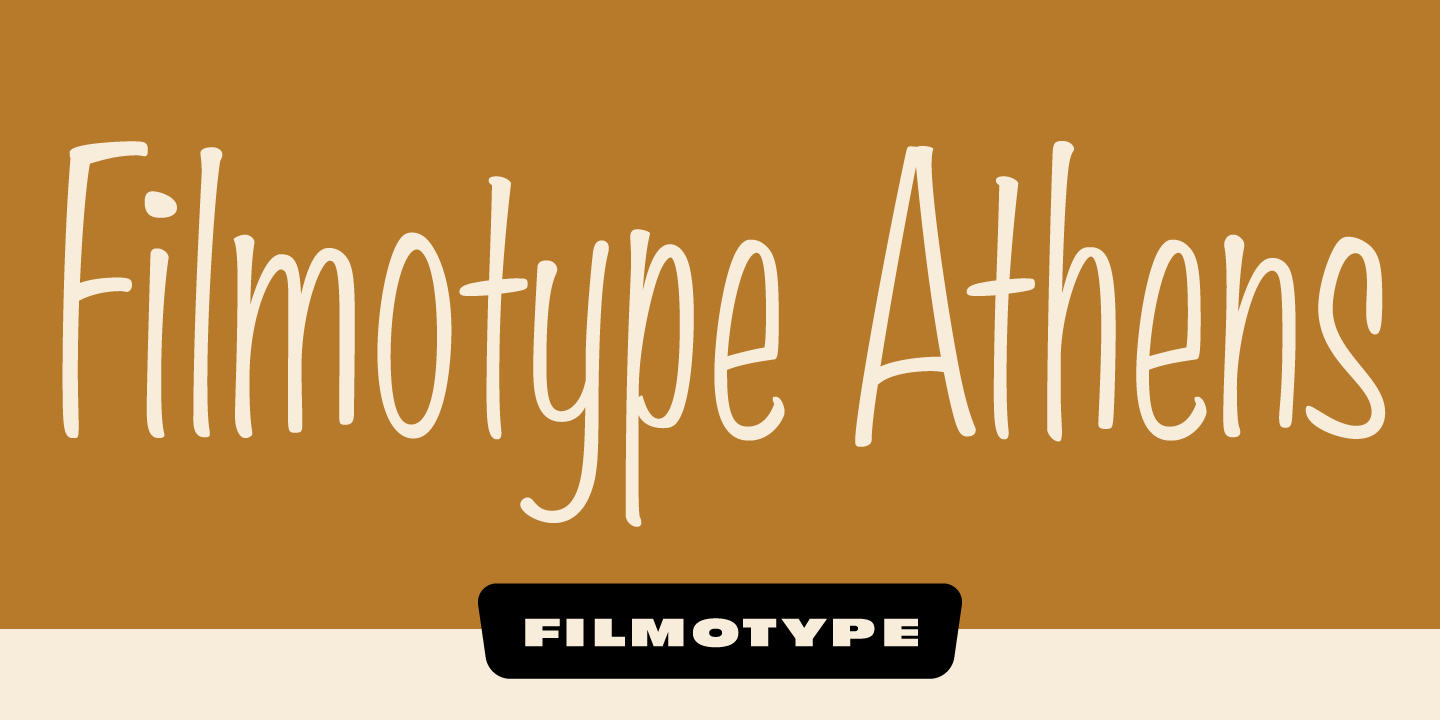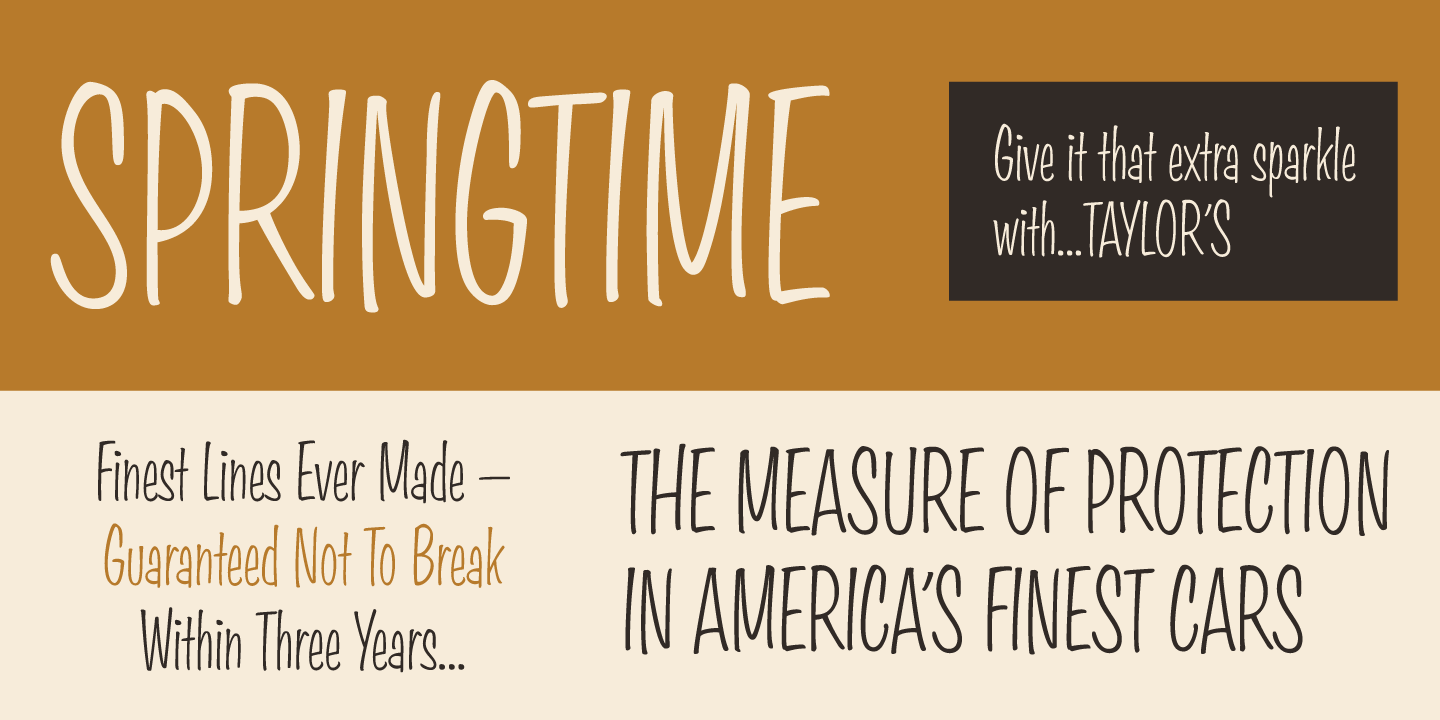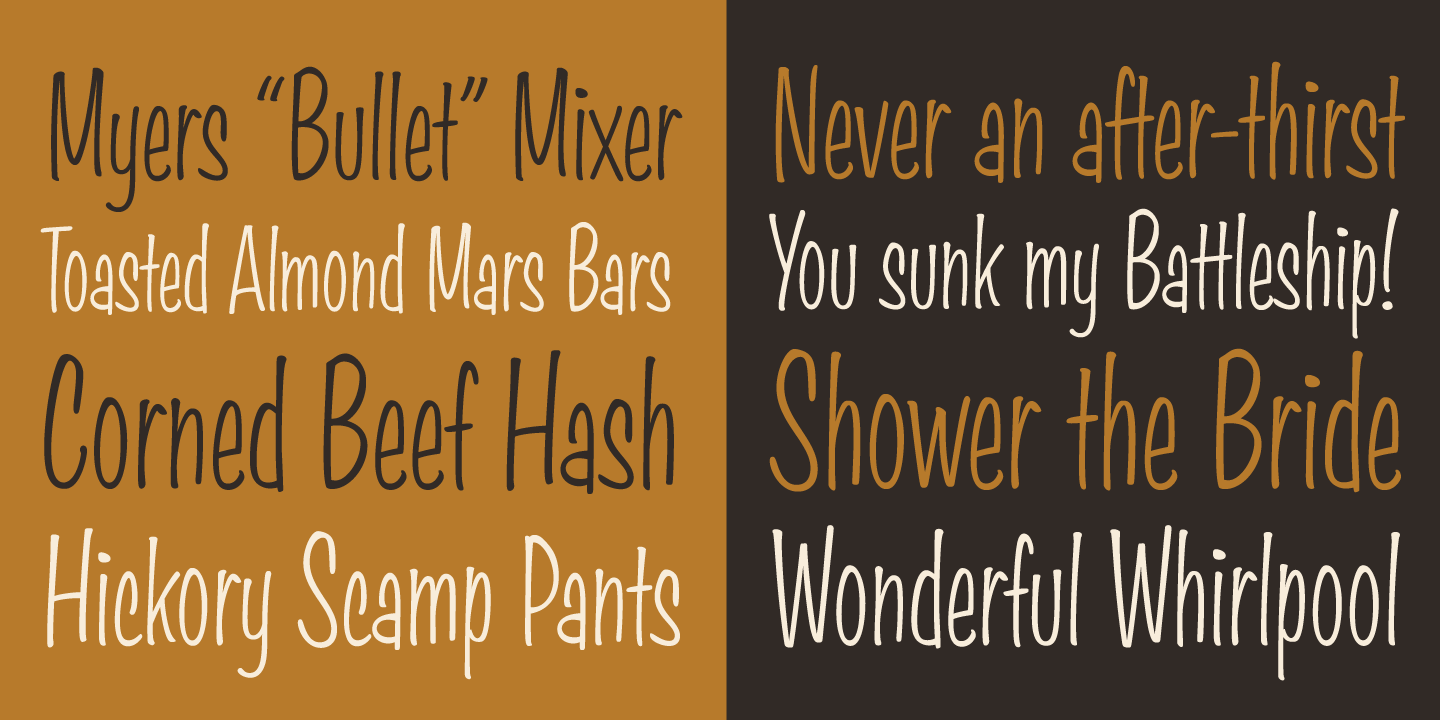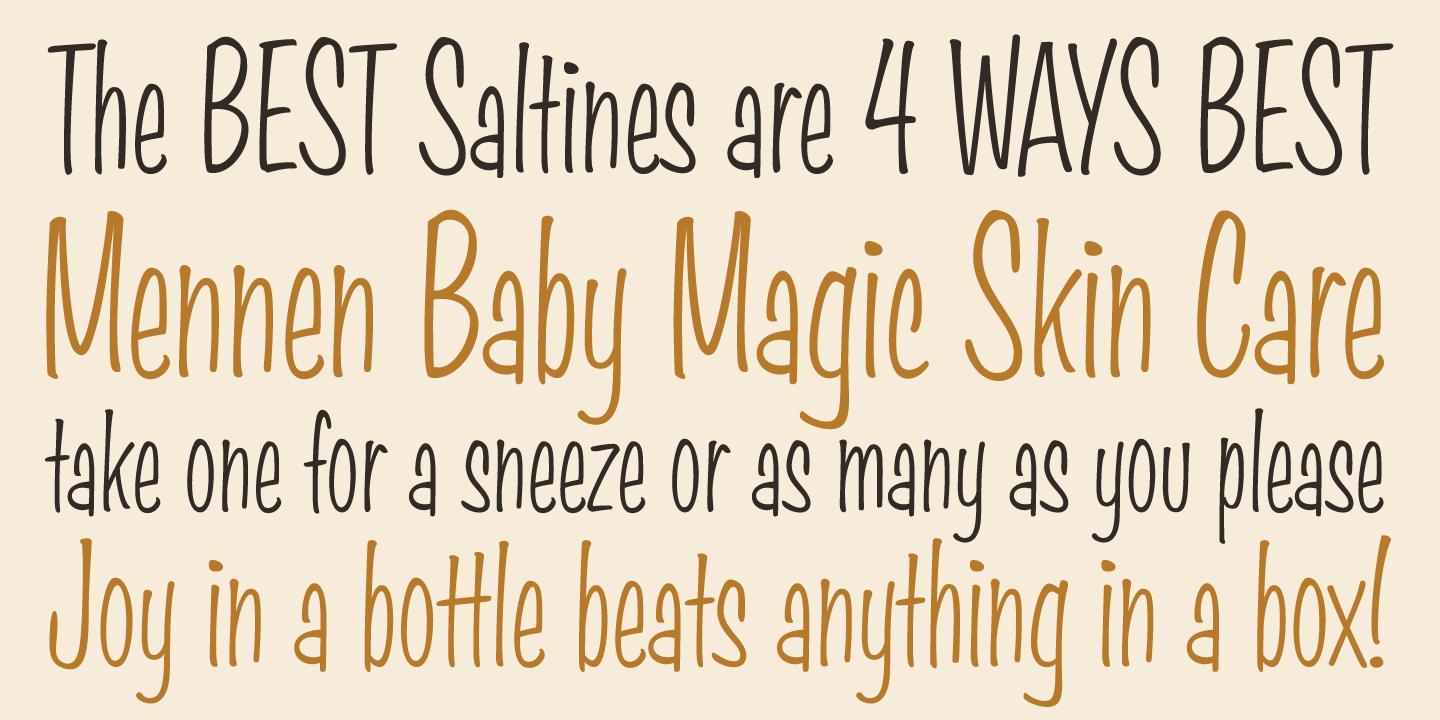
Filmotype Athens
Introduced by Filmotype in 1955, Filmotype Athens was among Filmotype's first condensed handlettered sho-card brush script faces for narrow applications where economy and style were paramount to the design while retaining legibility and easy readability.
Filmotype Athens developed from the original font filmstrips and includes a full international character compliment, automatic fractionals, ordinals, and a host of alternate characters in dynamic OpenType format.